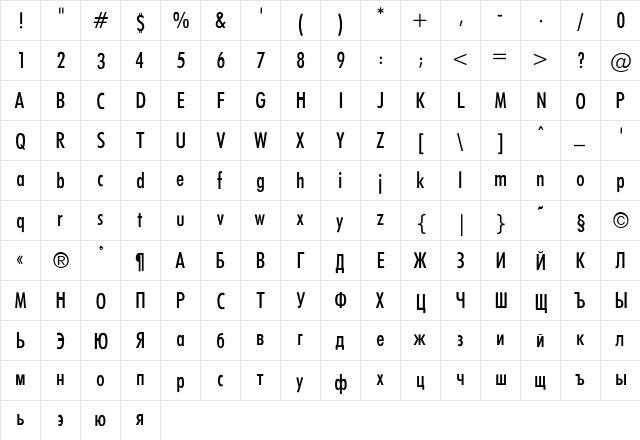
Futura_Condenced-Normal Regular
Design Context for Futura_Condenced-Normal Typeface
Futura_Condenced-Normal has a distinctly futuristic character, with geometric precision and clean angles that feel at home in technology, gaming, and sci-fi contexts. The condensed width makes it efficient for tight spaces without sacrificing legibility.
Pro Tip: Try Futura_Condenced-Normal with generous letter-spacing in UI labels and navigation — the geometric forms benefit from room to breathe.